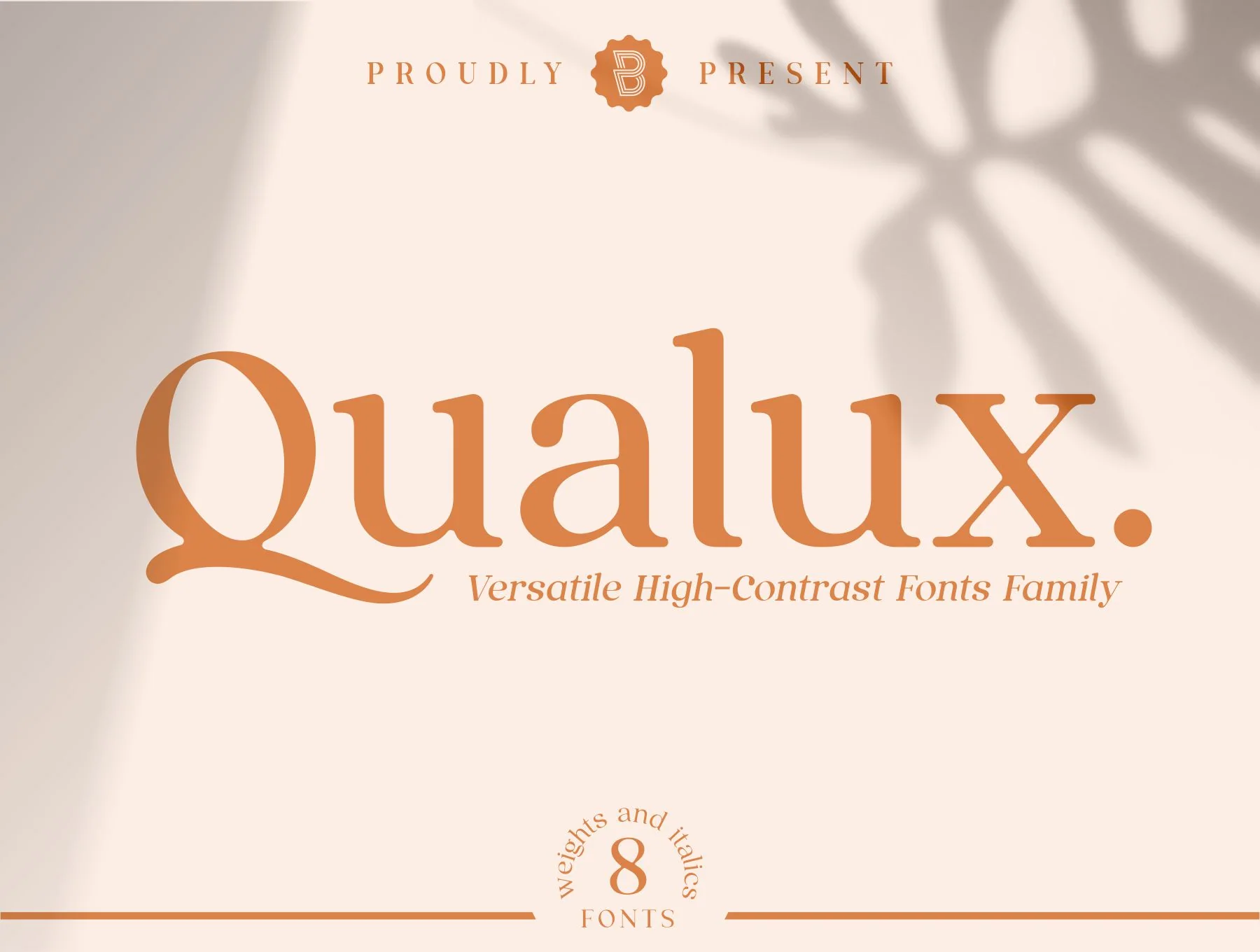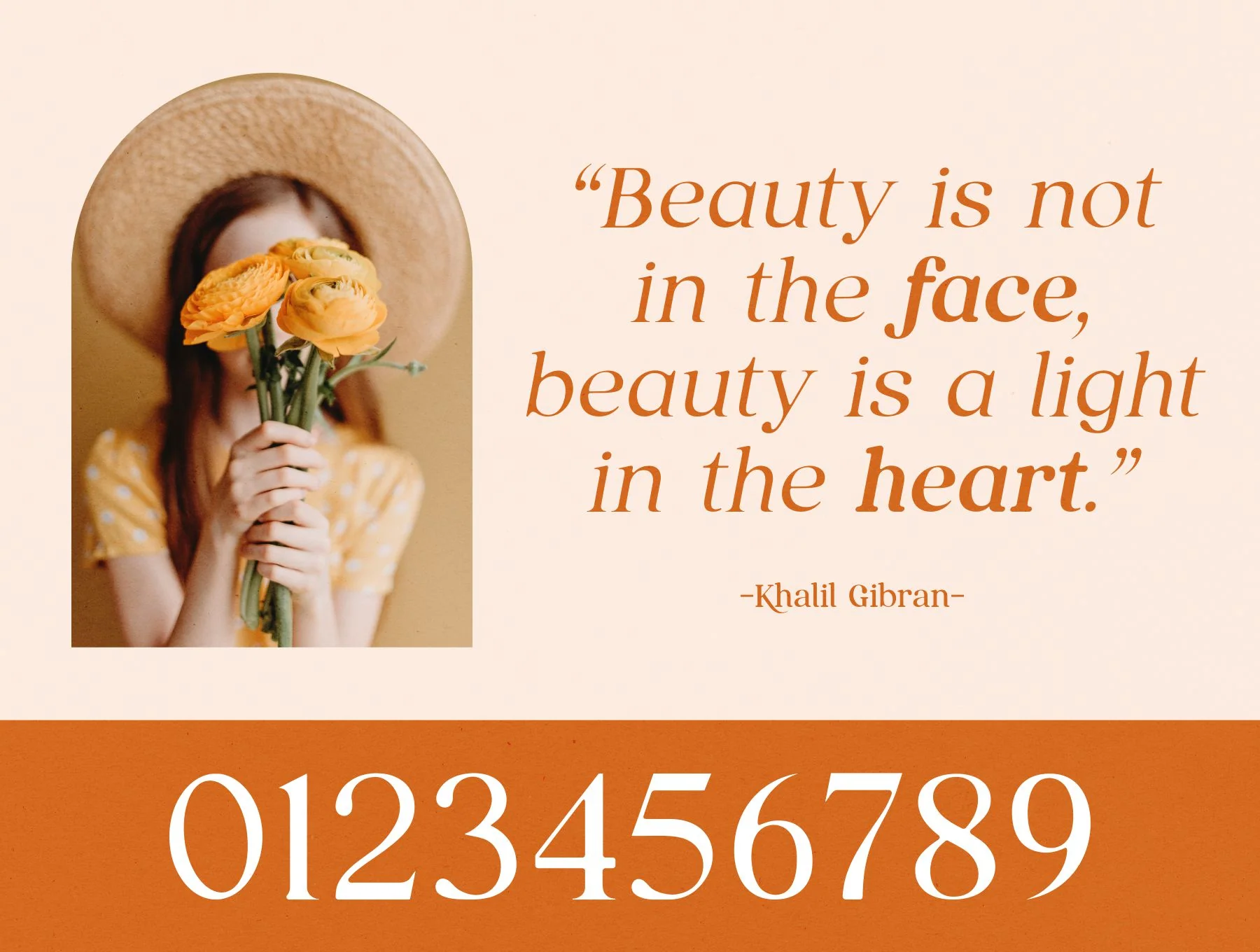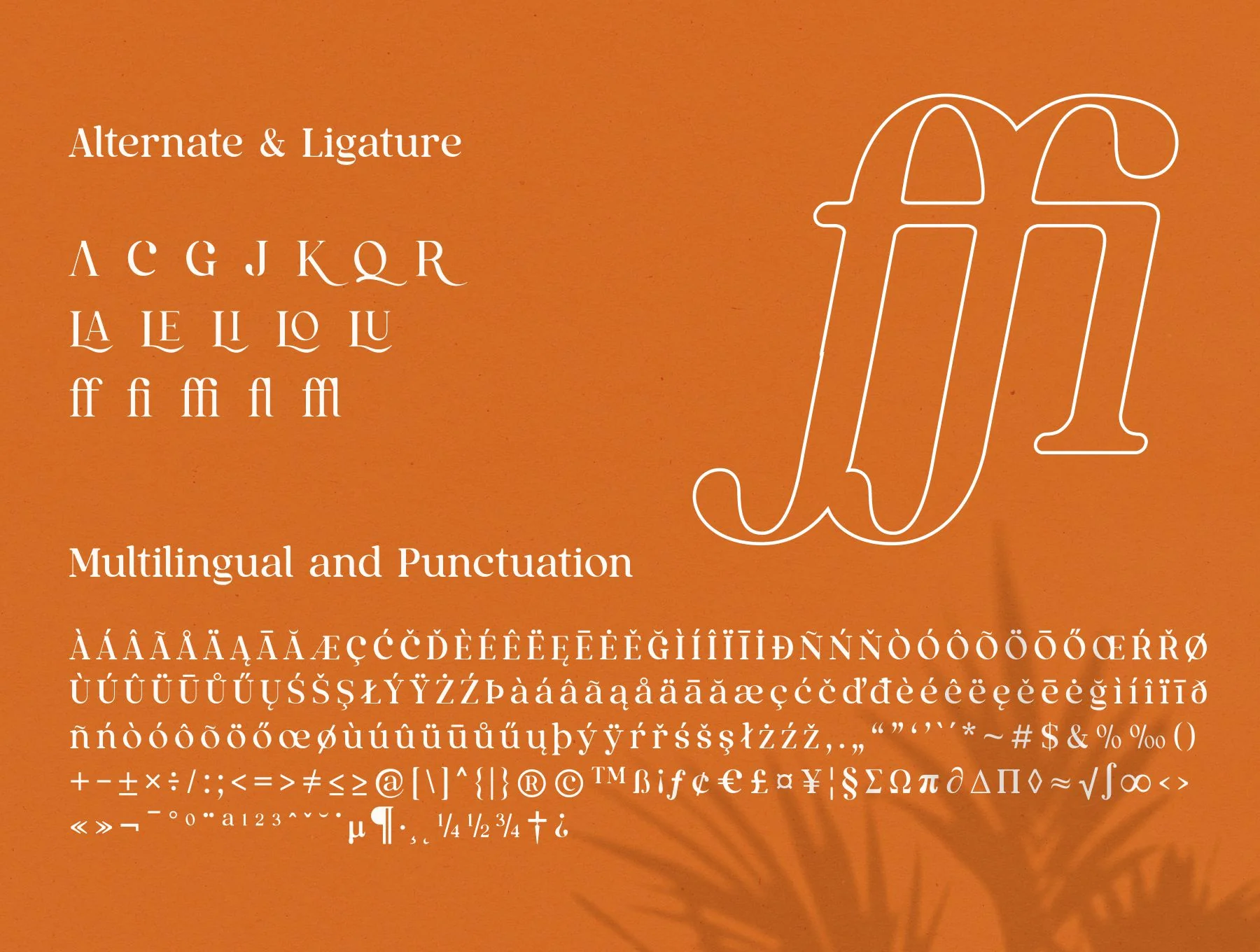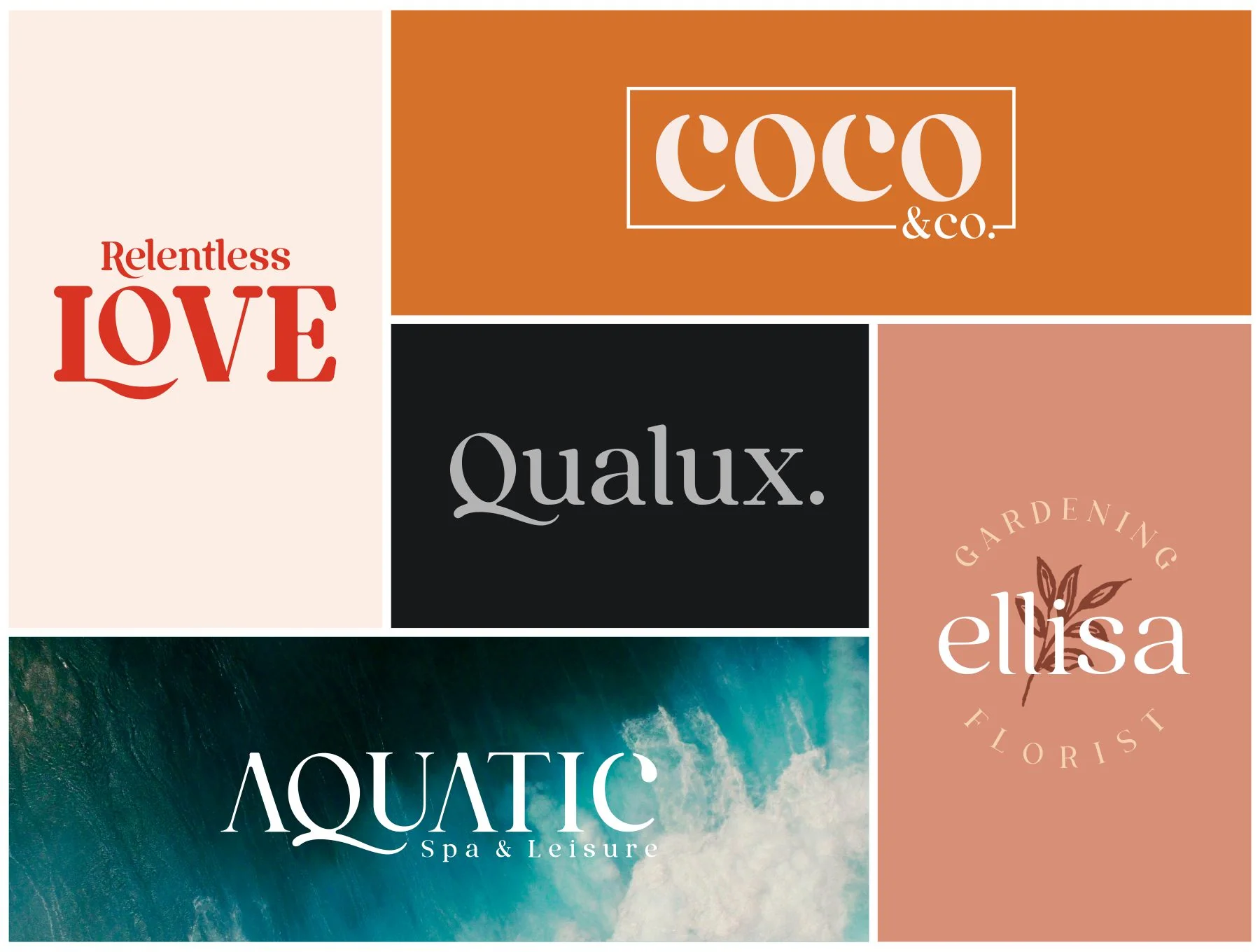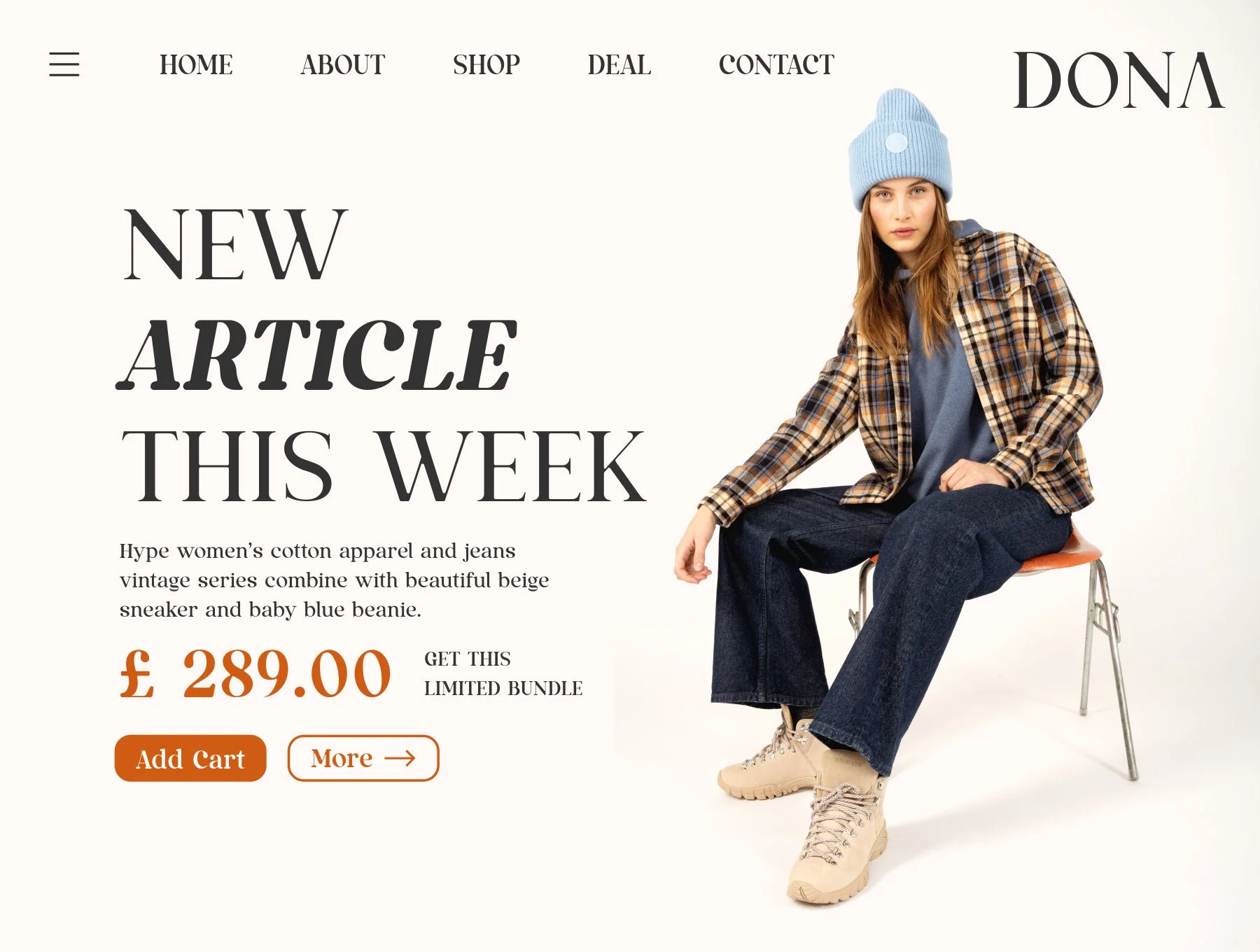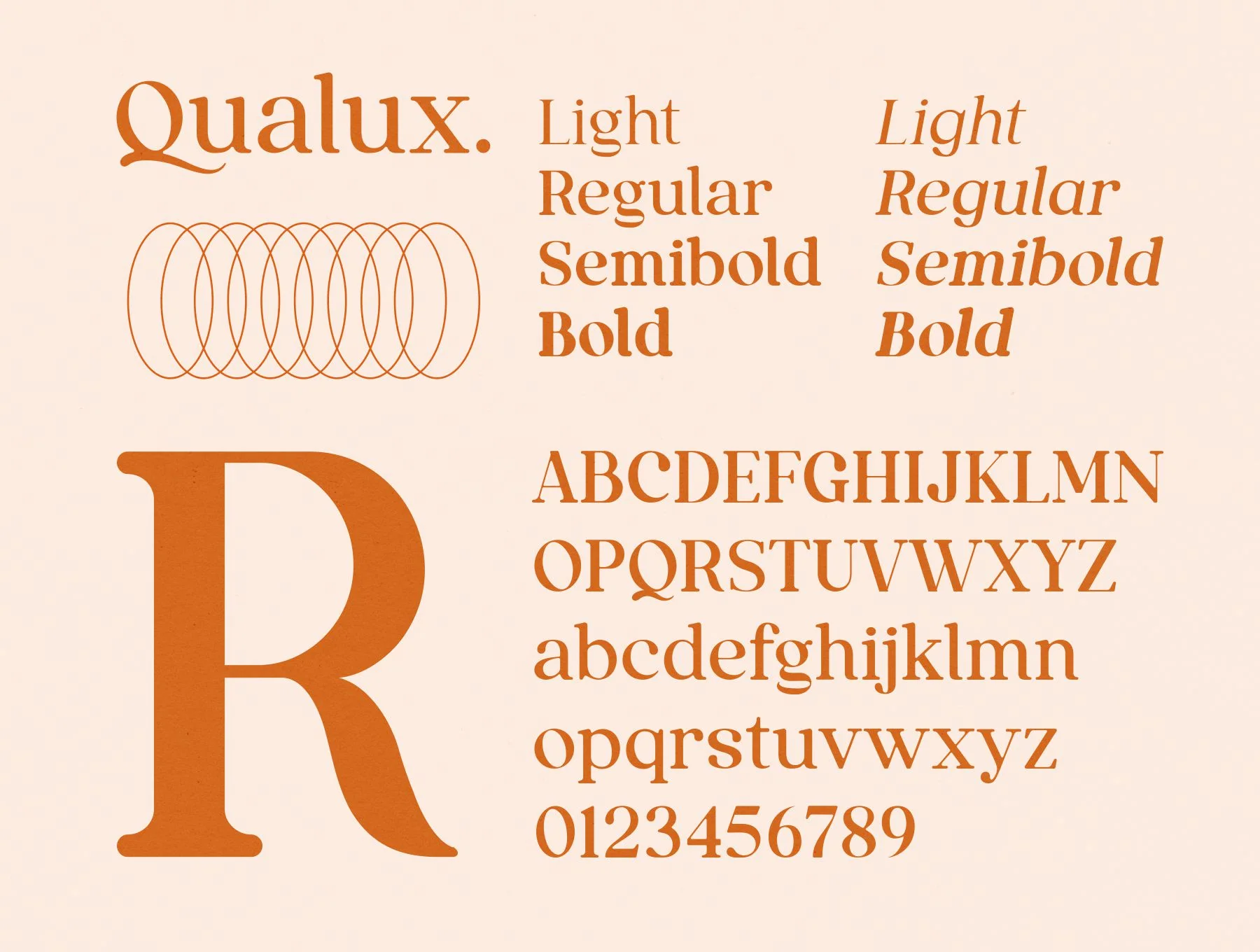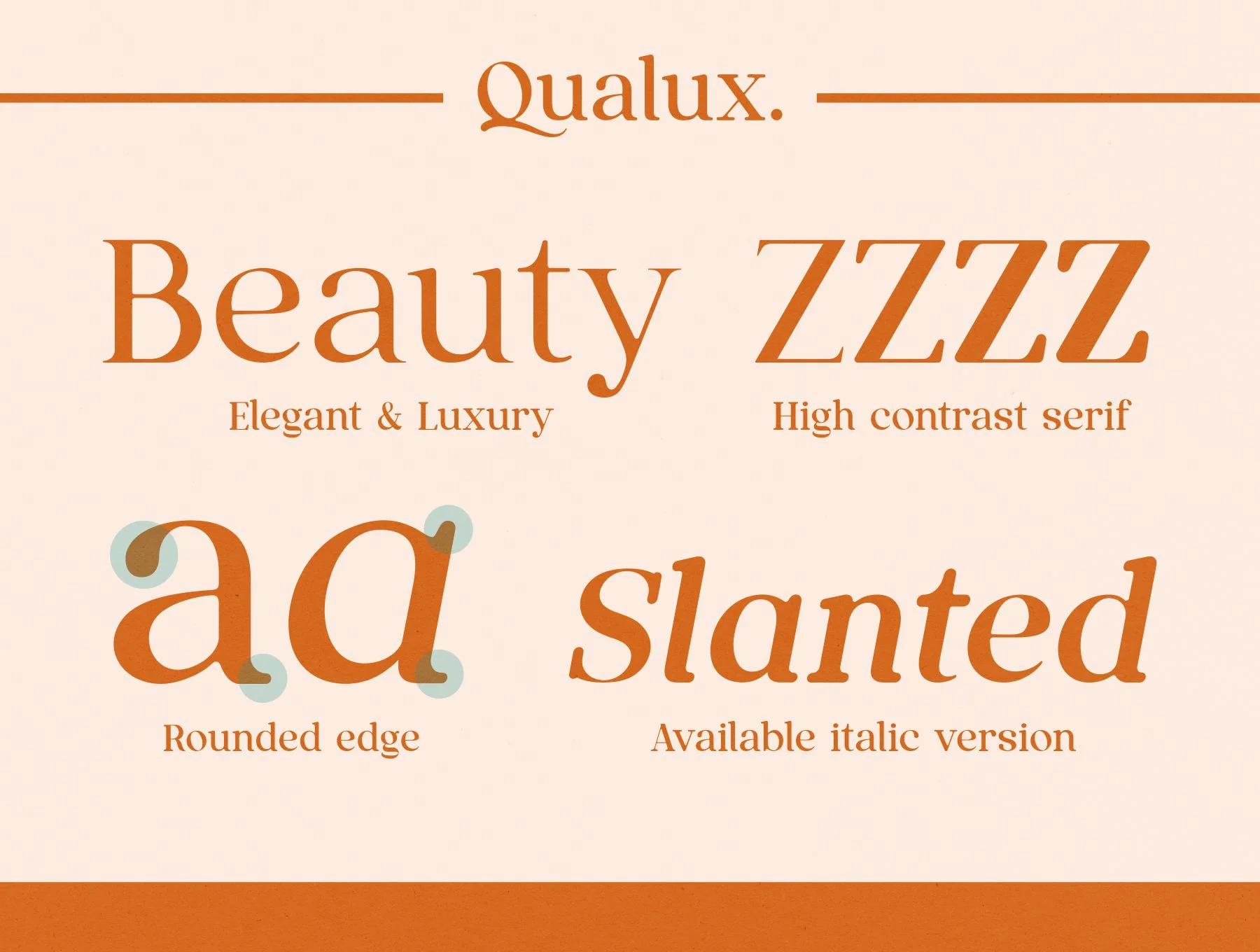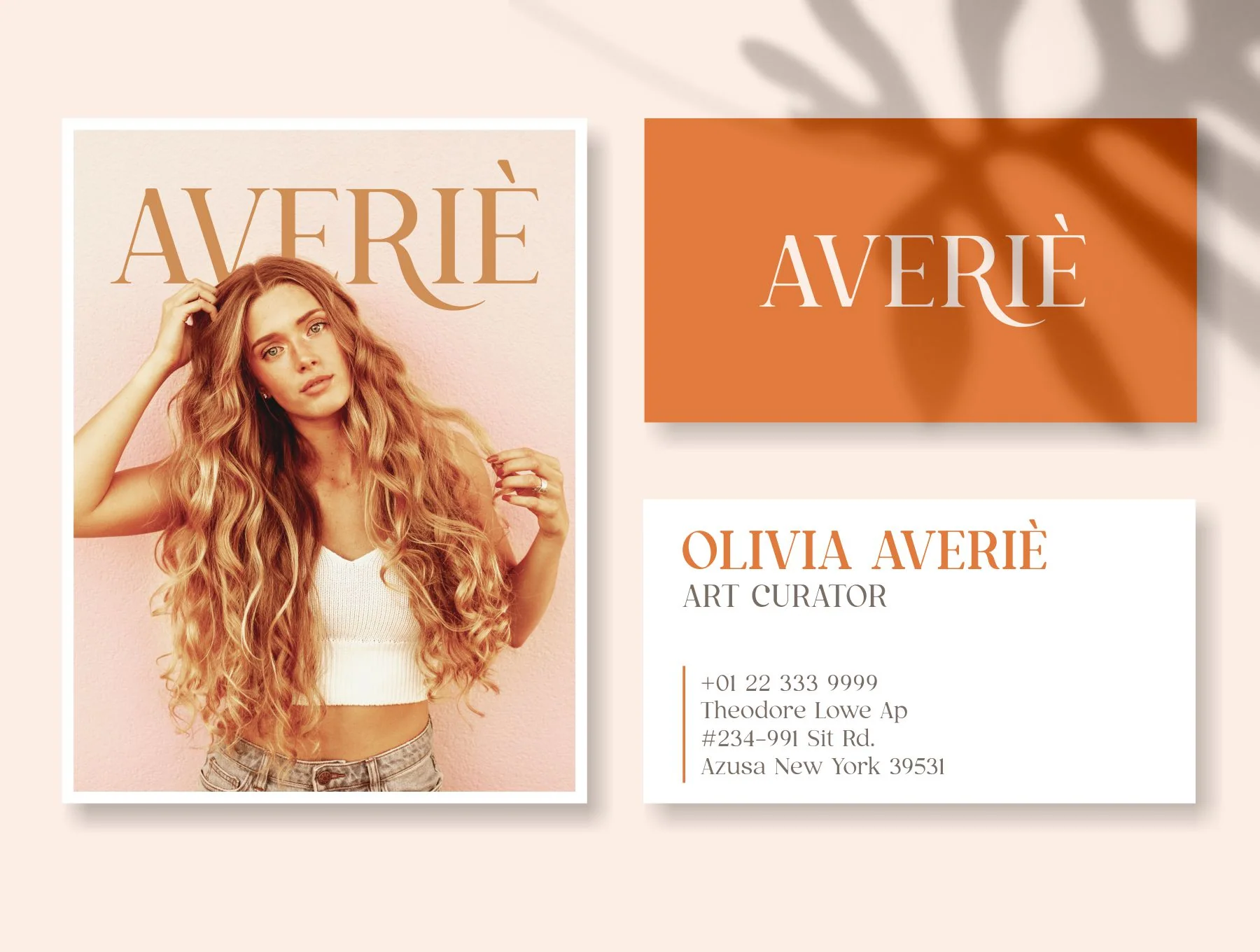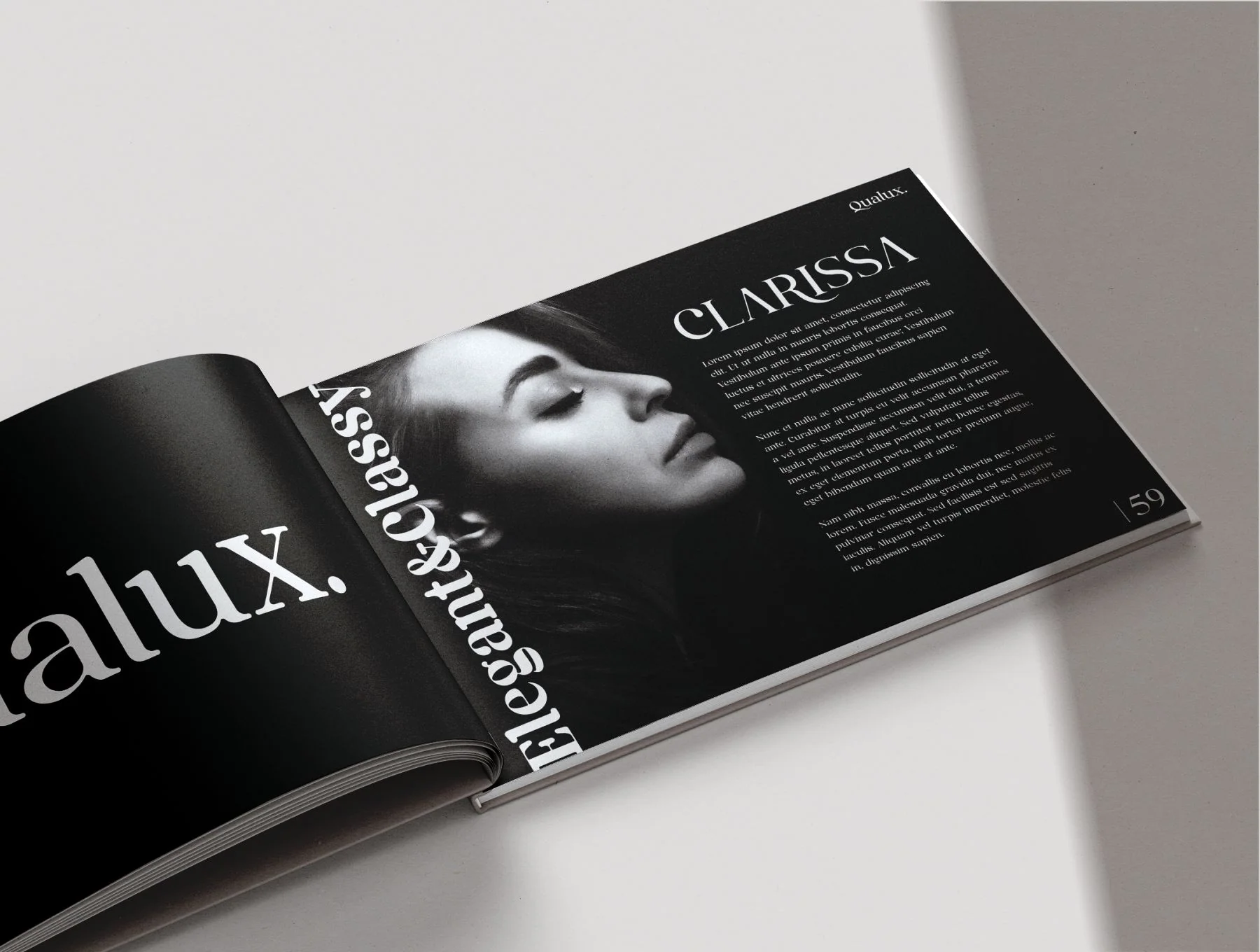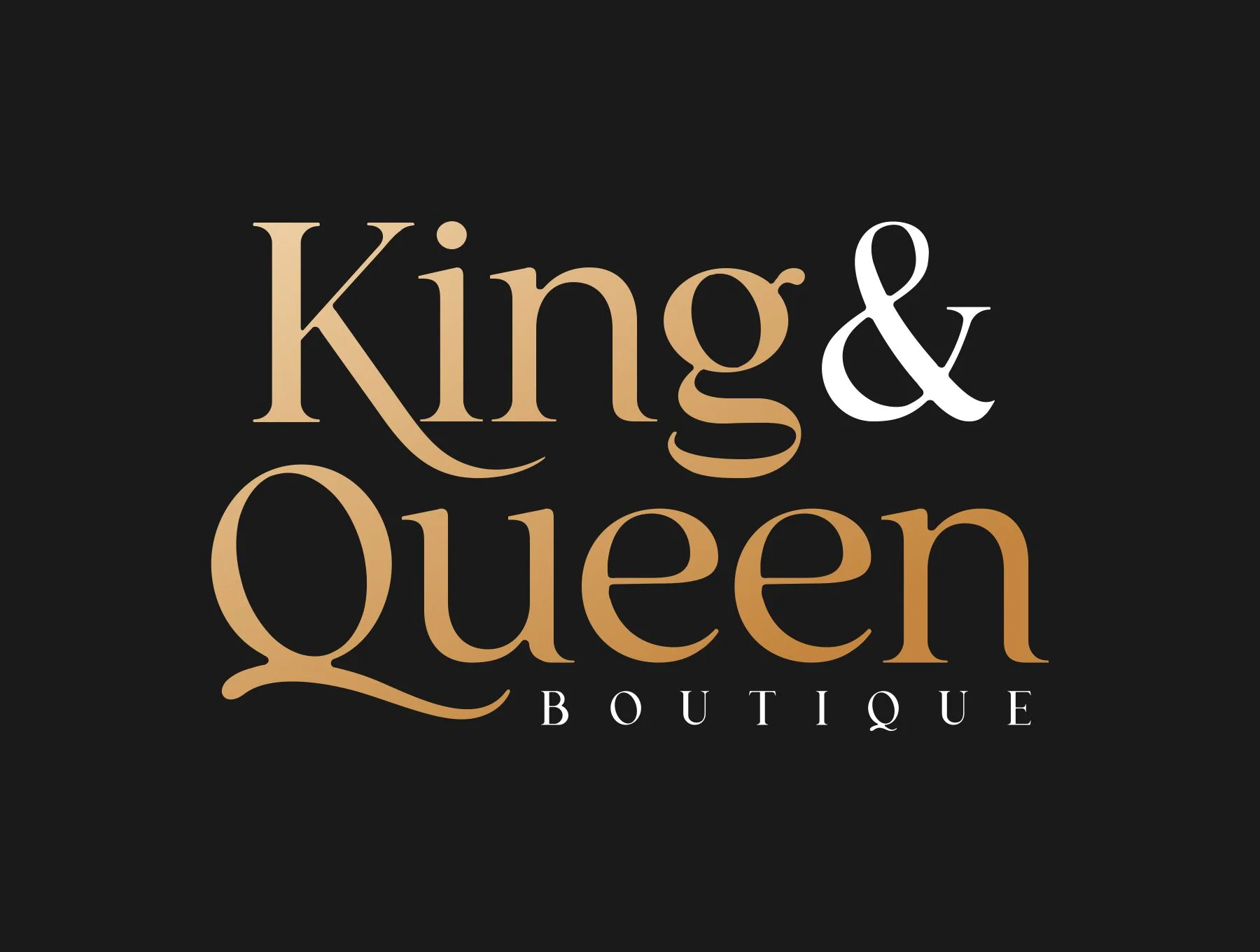
Qualux Fonts Family
Flexible High-Contrast Serif Font Family
Basic Glyph Set
Numbers and Symbols
Alternate Styles and Ligatures
Supports Multiple Languages
Qualux is a flexible, high-contrast serif family inspired by quality and luxury. It blends vintage elegance in lighter weights with a warm, playful feel in bold, finished with softly rounded glyph ends. Ideal for logos, branding, magazines, signs, fashion and more. Includes 8 styles plus OTF, kerning, standard glyphs, alternates, ligatures, numerals, symbols and multilingual support.